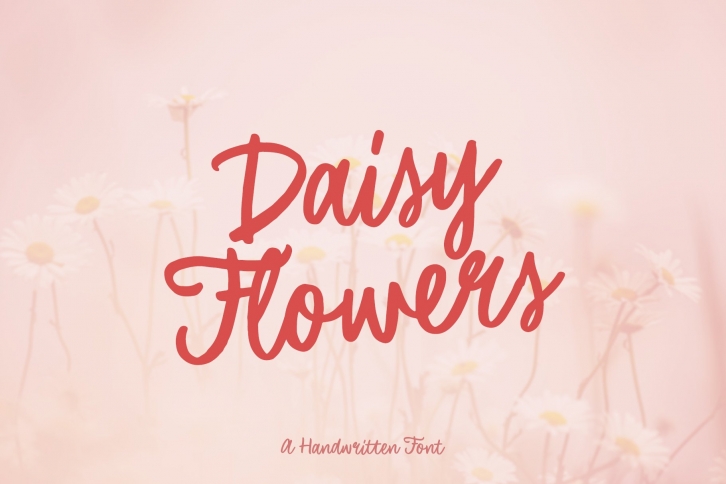
Daisy Flowers handwritten is a trendy and unique font with an authentic style. It was designed by Dima Evans and it's a great choice for creative people who need such a font. It was released on October 17, 2021 and the file size is 1.28 MB. Daisy Flowers handwritten will add an organic vibe to any design idea!